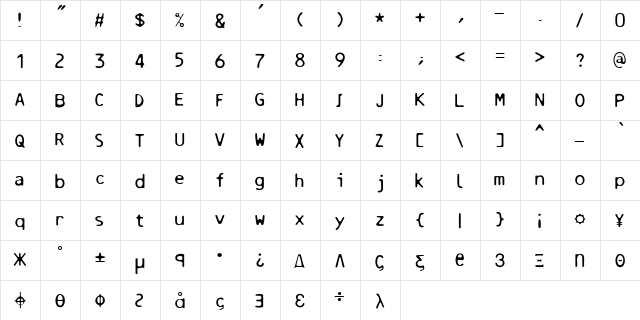
Resbaloso Medium
Design Context for Resbaloso Typeface
Resbaloso offers clean, dependable letterforms without strong stylistic allegiance, making it a practical choice for designers who need flexibility.
Pro Tip: Pair Resbaloso with a font of contrasting weight or personality to build a more expressive typographic hierarchy.